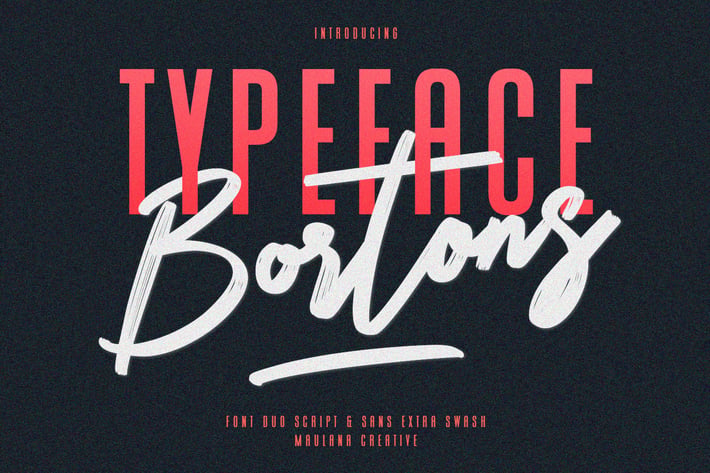
Bortons Font Duo Swash Typeface
Give your designs an authentic handcrafted feel. Bortons Font Duo Swash Typeface is perfectly suited to signature, stationery, logo, typography quotes, magazine or book cover, website header, clothing, branding, packaging design and more.